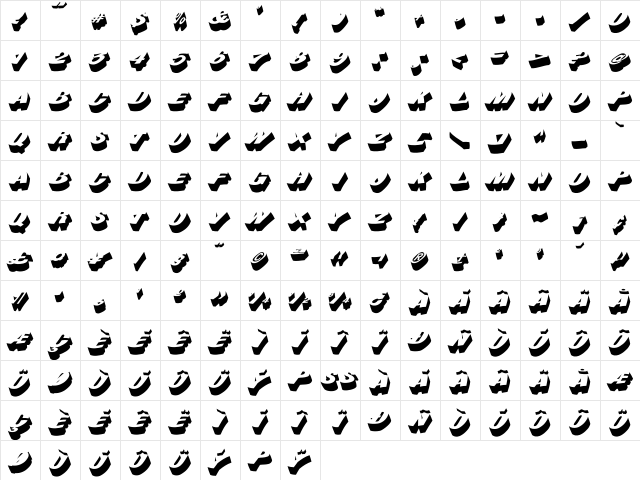
WrongTypesShadows Regular Font Preview
WrongTypesShadows Regular
Design Context for WrongTypesShadows Typeface
WrongTypesShadows brings ornamental detail and strong personality to headlines and identities, where visual impact matters more than quiet functionality.
Font Pairing: Pair with a clean neutral sans-serif for body copy to let WrongTypesShadows's character lead without overwhelming the composition.
Pro Tip: Treat WrongTypesShadows as the centrepiece of your typographic hierarchy. One strong heading set in a decorative face can carry an entire layout.